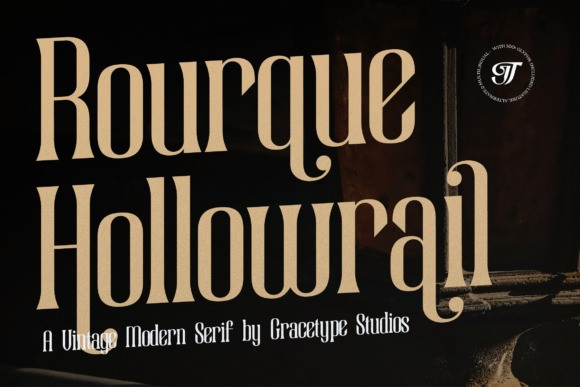
Rourque Hollowrail Font is a magnificent Vintage Modern Serif, delivering an intense, dramatic typographic statement reminiscent of high-contrast Art Deco signage.
This display typeface features exaggerated stroke contrast, dramatic slab serifs, and high waistlines, giving it a powerful, vertical rhythm and an imposing presence. The ornate, flowing curves (seen especially in the ‘R’) add a custom, luxurious feel.
With its extensive glyph set, alternates, and multilingual support, this font is ideal for high-fashion branding, editorial mastheads, vintage movie titles, luxury packaging, and bold poster design.
It is the perfect choice for designs that demand glamour, strength, historical depth, and an artistic, unforgettable Art Deco style. Use Rourque Hollowrail to command attention with a powerful blend of heritage and modern sophistication.